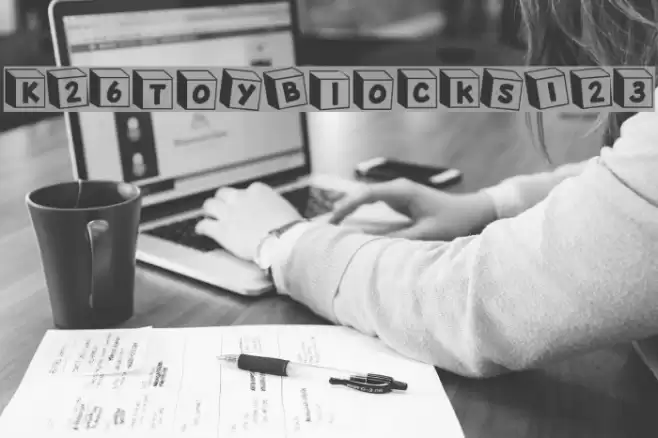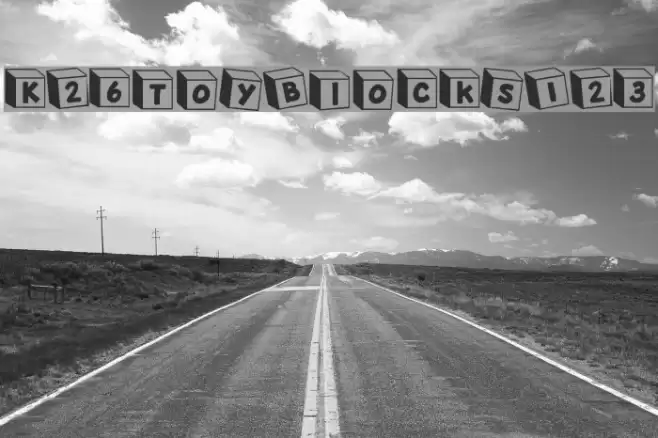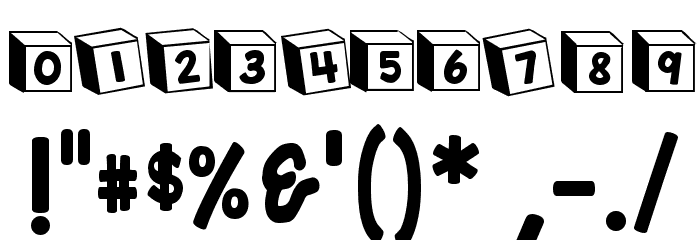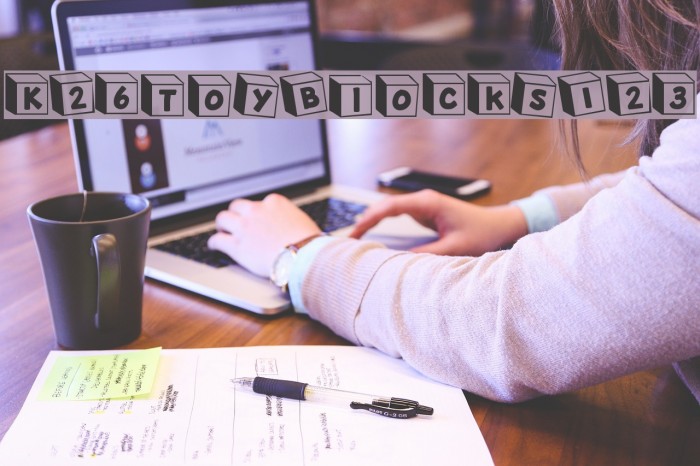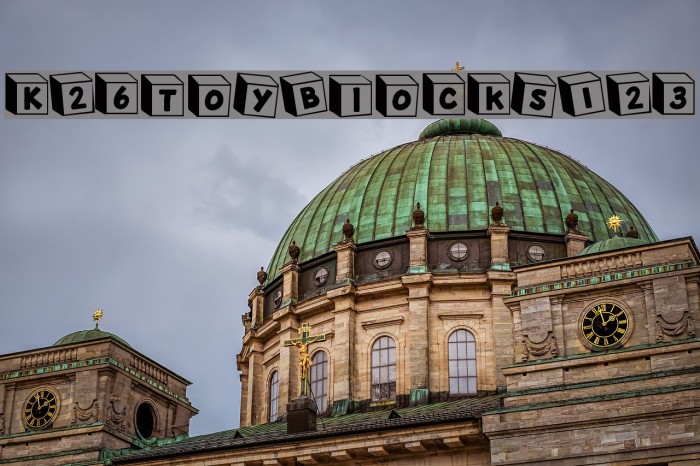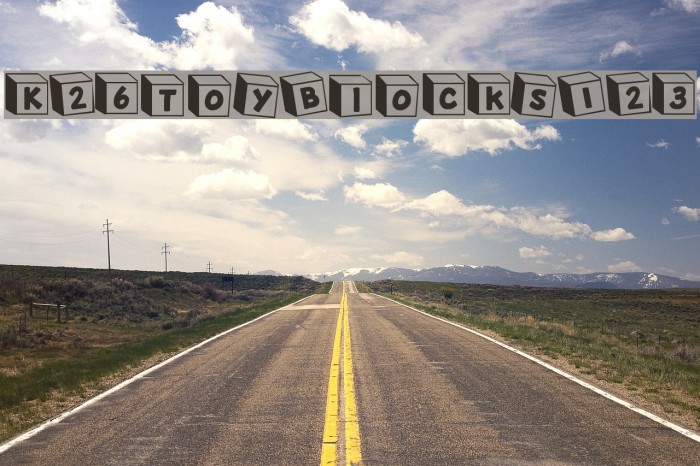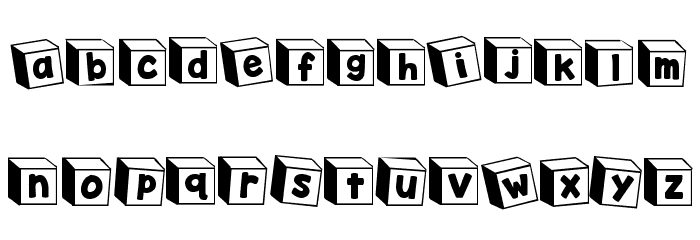
K26ToyBlocks123 Font
K26ToyBlocks123 Description
This playful and bold font features letters and numbers designed to resemble three-dimensional toy blocks. Each character is encased in a cube, giving a sense of depth and dimension. The font has a whimsical and fun appearance, making it ideal for children's projects or playful designs. The characters are bold and easy to read, with a consistent style across uppercase, lowercase, numbers, and special symbols. The overall look is chunky and solid, with a strong presence on the page.
A playful, 3D block-style font perfect for children's designs from Decorative fonts.
- Proposed Projects: Ideal for children's books, toy packaging, educational materials, and playful branding.
- Overall Style: Playful, Fun, 3D